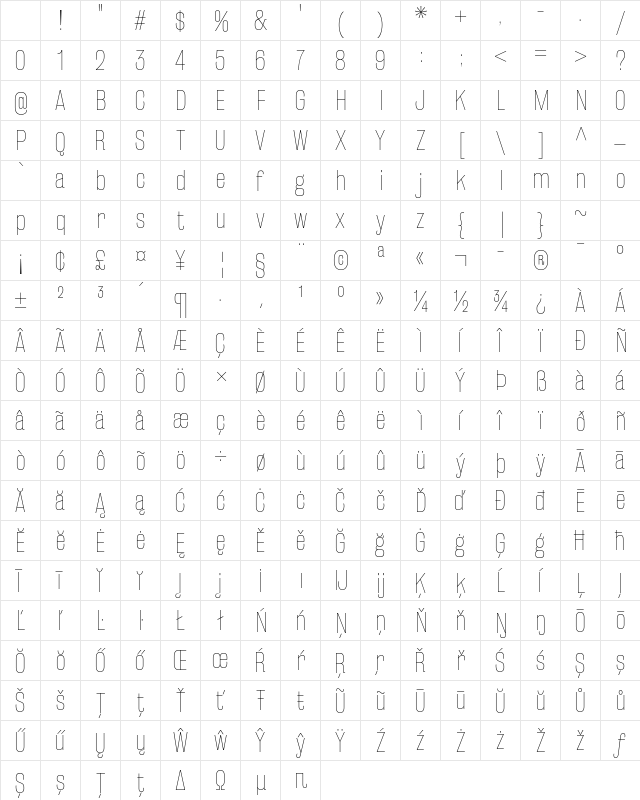
Rakesly is a composed and adaptable typeface that performs quietly and consistently across a wide range of design contexts. Its slender proportions lend an understated elegance to any composition.